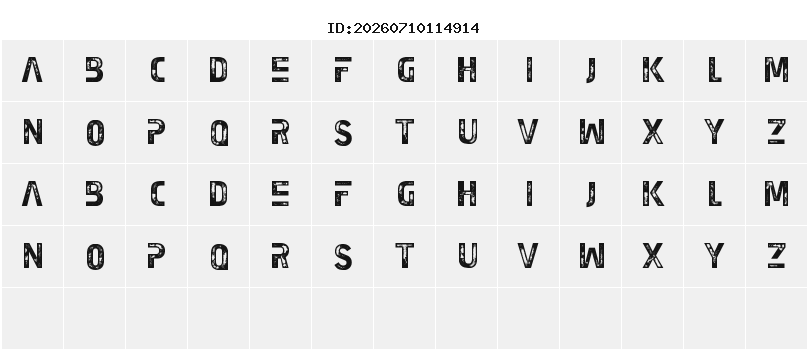
Earth Kid Preview
• Font Name: Earth Kid
• Full Font Name: Earth Kid
• Version: Version 1.00 July 13, 2005, initial release
About Earth Kid.ttf
Earth Kid.ttf is a modern, elegant sans-serif font designed for ultimate readability and visual harmony. Perfect for branding, headlines, web design, and print materials.